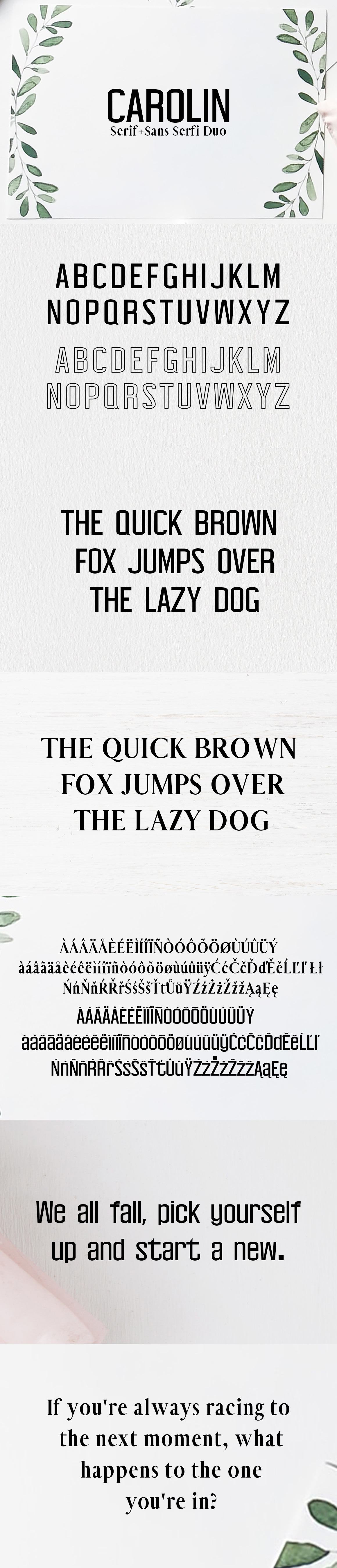
Carolin Duo 5 Font Family Pack
Carolin Serif + Sans Serif Duo Font Family Pack delivers an extraordinary unique typeface, let you create more impression with your design. Perfect for gorgeous logos, titles, web layouts and branding. It looks gorgeous in all caps with a wide-set spacing if you want to try a classy look, or beautiful on its own in capital and lowercase letters for something completely timeless.
Included Features:
- Font Weight: Regular, Thin, Light and Outline
Carolin Font Duo Features:
- Uppercase Multilingual Letters
- Lowercase Multilingual Letters
- Non English Characters ( Latin Supplement + Latin Extended A )
Included Features:
- Font Weight: Regular
Hadeed Font Features:
- Uppercase Multilingual Letters
- Lowercase Multilingual Letters
- Non-English Characters